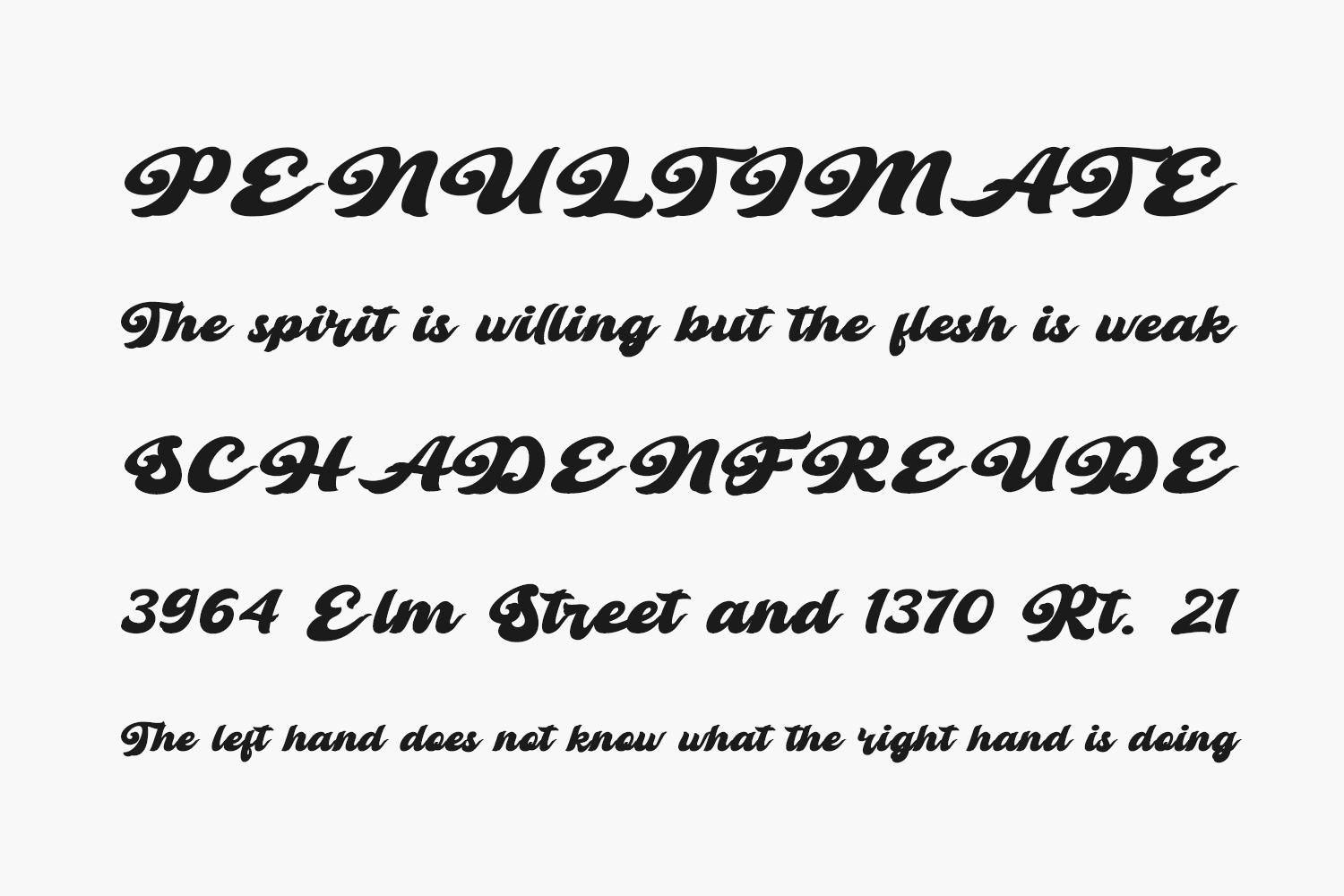
Retro Young Free Font is a retro styled and bold handwritten font, crafted to give your headlines and logotype projects a stylish touch. This font reads as strong, confident, and dynamic and can add tons of nostalgic character to your designs. Retro Young Free Font was designed by Figuree Studio and is free for personal use only. Please purchase the full version for commercial use.